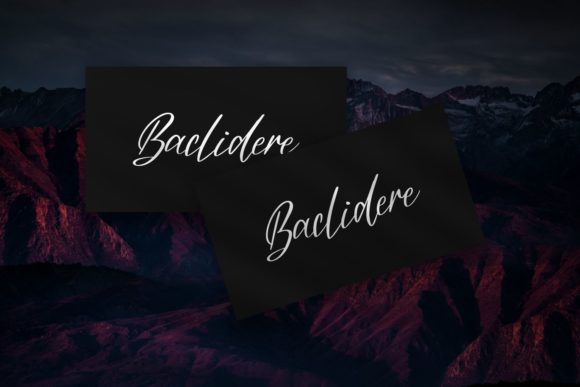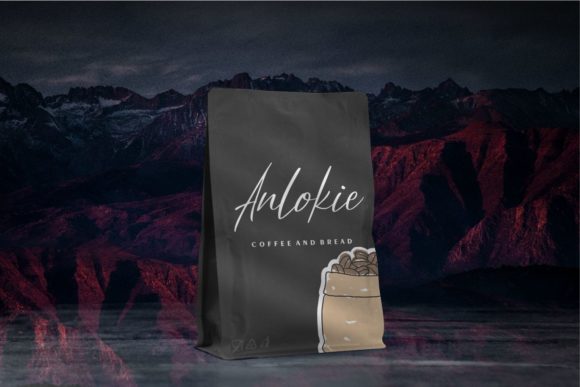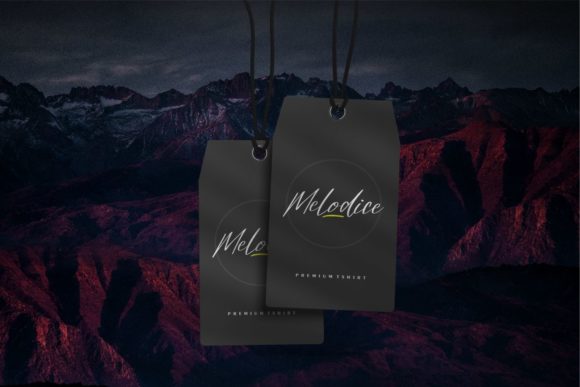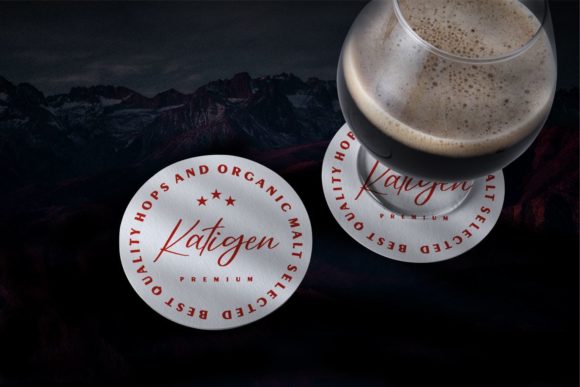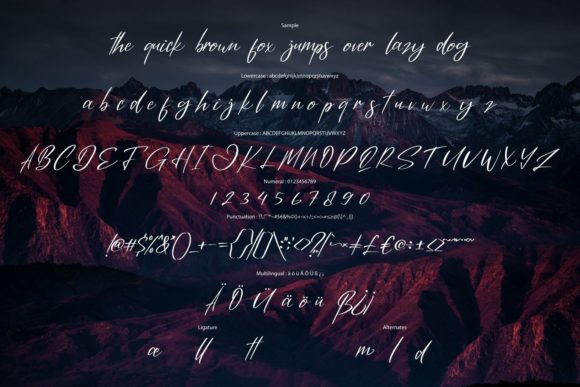
Hafillafes Font
About Hafillafes Font
Imagine a font that effortlessly merges charm and elegance, creating a visual masterpiece that enhances the allure of wedding invitations, thank you cards, quotes, greeting cards, logos, business cards, and any design in need of a handwritten touch.
This font exudes timeless charm and elegance, transforming wedding invitations into veritable works of art. Its graceful curves and meticulous details set the perfect tone for the most special day in a couple’s life, leaving a lasting impression.
Thank you cards take on a new level of warmth and personalization with this font. Its handwritten touch adds a unique feel, turning simple expressions of gratitude into heartfelt and memorable messages. The font elevates the art of conveying appreciation, ensuring that each card becomes a cherished keepsake.
Quotes come alive with a poetic flair as the font gracefully weaves words into a visual tapestry. Its charm extends beyond individual letters, creating a harmonious dance that enchants readers. Whether featured on posters or social media graphics, the font turns mundane words into impactful statements, leaving an indelible impression.
Greeting cards are transformed into sentimental treasures as the font infuses them with elegance. Birthdays, anniversaries, or celebratory occasions become more memorable when paired with a font that mirrors the warmth of a handwritten note. The intricate details and graceful flow ensure that each card is a unique work of art.
Logos and business cards benefit from the font’s ability to convey professionalism with a personal touch. It seamlessly merges sophistication with approachability, making a brand or business instantly recognizable. The handwritten aesthetic adds a human element, forging connections with clients and customers.
The font’s PUA encoding is the icing on the cake, granting designers seamless access to an array of glyphs and swashes. This functionality allows for effortless customization and enhancement, ensuring a unique and tailored result for every project.
In essence, this font transcends its role as a mere typeface; it’s a design companion that transforms ordinary projects into extraordinary works of art. With its charm, elegance, and versatility, it has become an essential tool for designers seeking to infuse their creations with a handwritten touch that elevates the ordinary into the extraordinary.